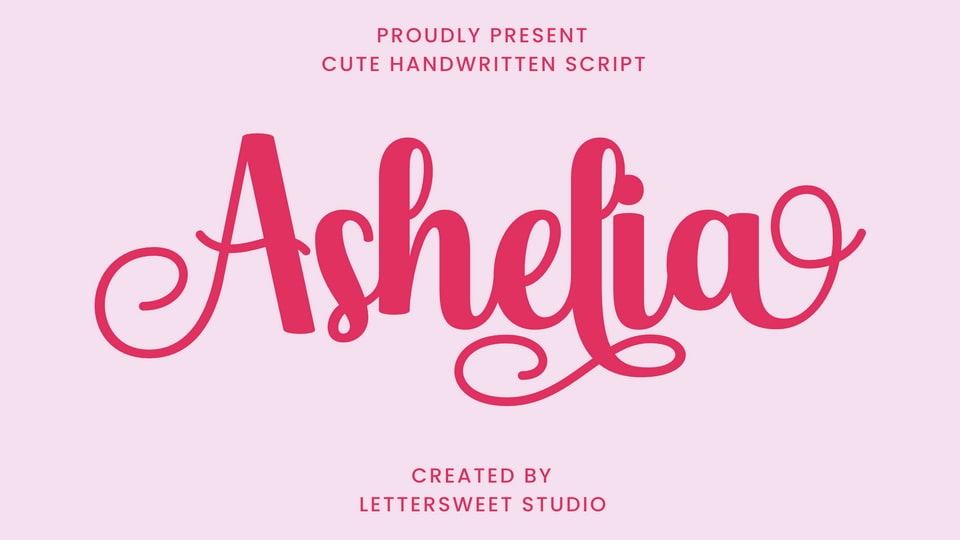
Download Ashelia font, a lovely and timeless handwritten typeface. It is the best choice for creating eye-catching logos, branding, and quotes. So the design can be more attractive.